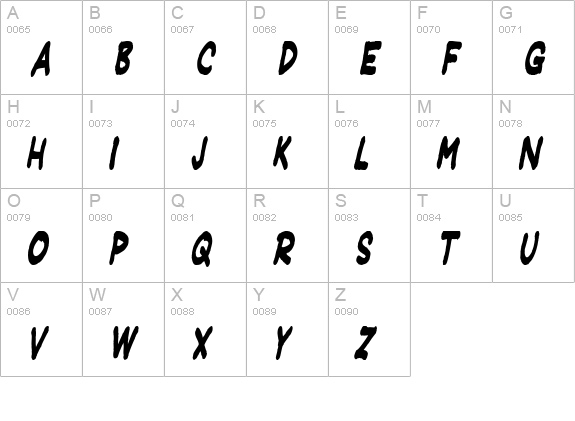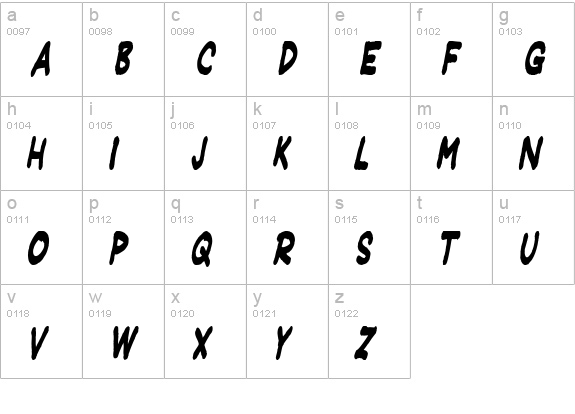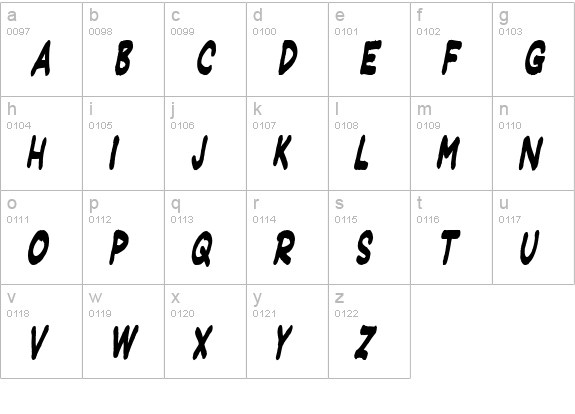
JeffreyPrint JL Condensed Italic is a distinctive, condensed-width, italic variant in the JeffreyPrint typeface family \xE2\x80\x94 well suited to design and typography projects.
Introducing JeffreyPrint JL Condensed Italic font - a sleek and stylish typeface that exudes elegance and sophistication. With its unique condensed design and italicized style, this font is perfect for adding a touch of modernity to your projects. Whether you're designing a logo, creating marketing materials, or crafting a website, JeffreyPrint JL Condensed Italic font will elevate your work to the next level. And the best part? This incredible font is available for free download at FontsMarket.com! That's right, you can access this premium font without spending a dime. Don't miss out on the opportunity to enhance your designs with JeffreyPrint JL Condensed Italic font - download it today and let your creativity shine!